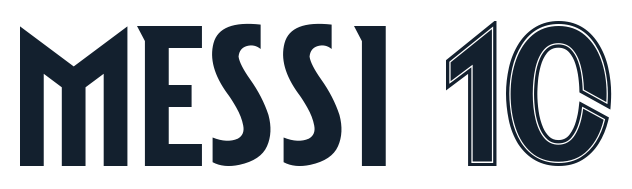
Club América 2025/26 Font Kit – Home & Away Liga MX Styles
The Club América 2025/26 Font Kit brings the bold, curved Pac‑Man‑style typography from Las Águilas’ latest Liga MX kits to your own designs. This pack covers both the yellow home kit font and the blue away kit variant, so you can match any jersey concept with authentic-looking numbers and letters. Ideal for fans, jersey printers and designers creating artwork for one of Mexico’s biggest clubs.
Meticulously redrawn to mirror the official 25/26 typeface, the font features playful rounded shapes, inner detailing and club crest markers at the base of the numbers, giving your designs a true Estadio Azteca feel. With TTF, OTF and multiple vector formats included, you can use the font in standard design software and scale it to any size without losing quality.
• Full A–Z uppercase letters and numbers 0–9 with Spanish accents (Á, É, Í, Ó, Ú, Ü, Ñ)
• Home kit version (yellow base style) and away kit version (blue base style), each ready for separate use in your layouts
These files are ideal for custom Club América jerseys, namesets, match graphics, banners, YouTube thumbnails, stickers, and social media content. The vector sets also include separated numbers so you can position and size each digit precisely for print or digital artwork.
• Liga MX authenticity: Designed to replicate the jersey typography used by Club América in the 2025/26 season
• Dual kit coverage: Includes both home and away font looks in one pack, maximizing your creative options
Because of its distinctive curves and decorative details, this font instantly communicates Club América’s identity and helps your football designs stand out.
Use this Club América 2025/26 Font Kit to design custom Las Águilas jerseys, posters and digital artwork that capture the energy of Mexico’s most famous club.